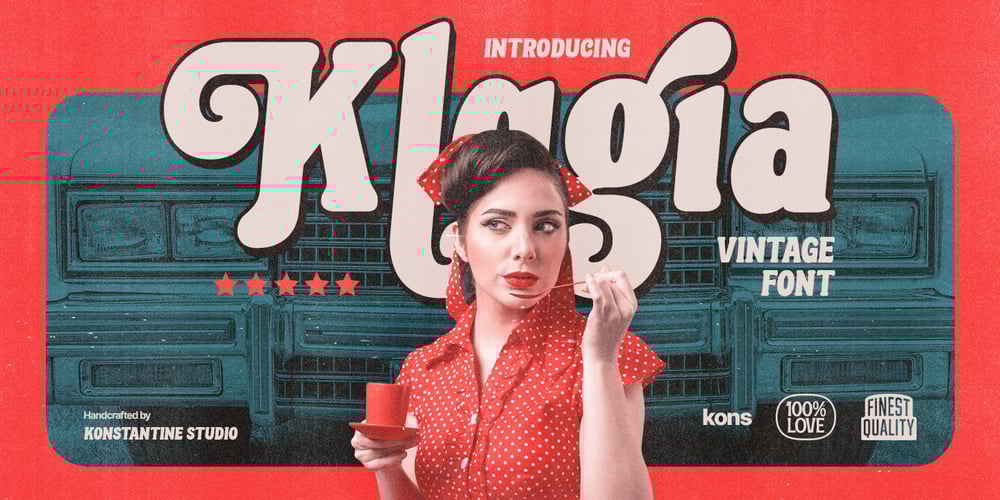
Klagia
Klagia font
Klagia Font Family was designed by Abdilah and published by Konstantine Studio. Klagia contains 1 styles and family package options. Klagia is a font inspired by the advertising media back in 1970. The glory of printing and handpainted signs and visuals. Emphasizing the bold, loud, yet poppin’ and modern retro vibes that will be stylish in any era. It makes Klagia a font that you need to have in your design arsenal.Contains a bunch of Ligatures and Stylistic Alternates to give a distinctive vibe in every message conveyed using Klagia font.Perfectly fit for logo, branding, advertising, poster, food and beverages, restaurant, book cover, album artwork, decoration, sign painting, and many more.